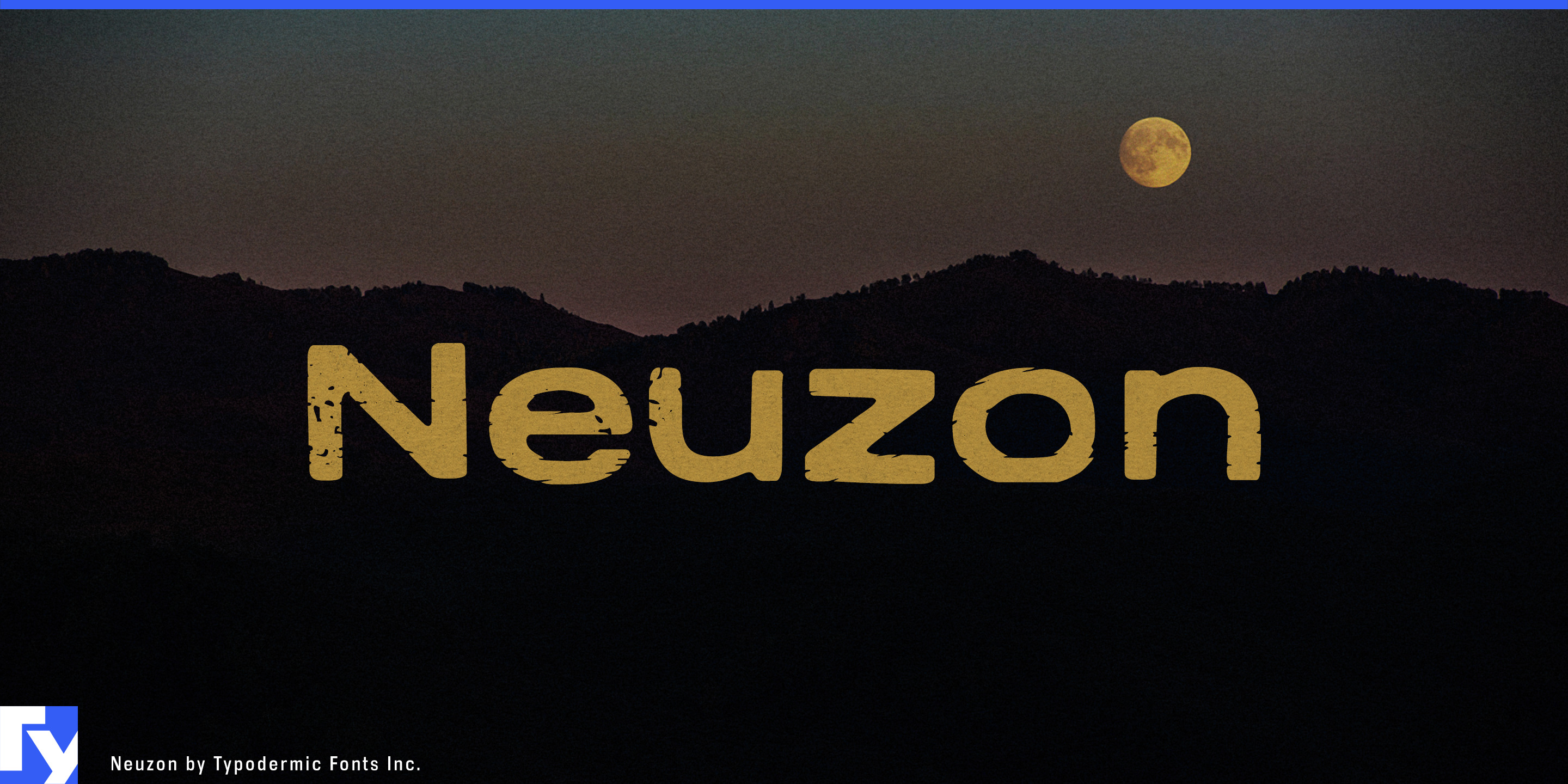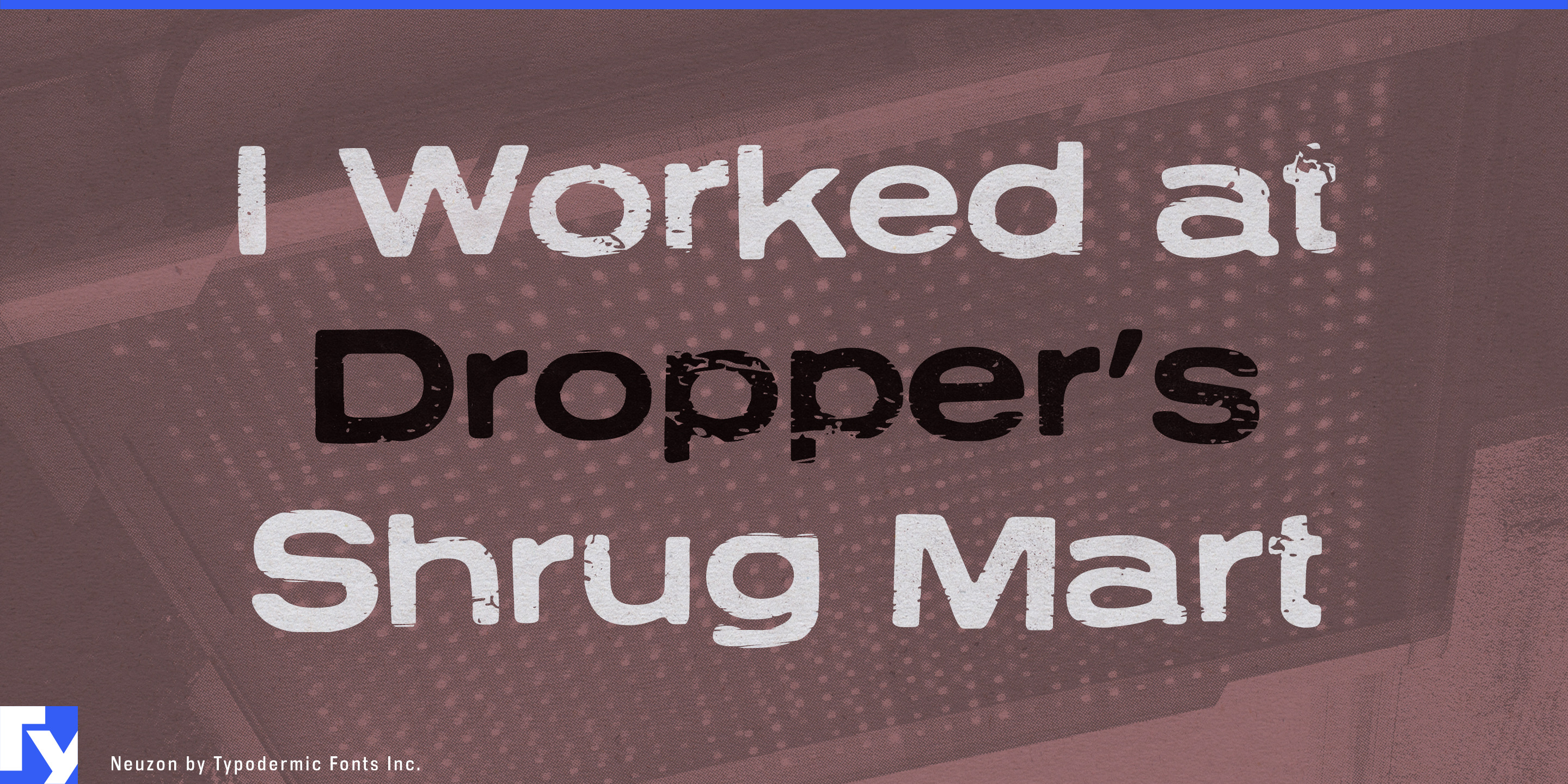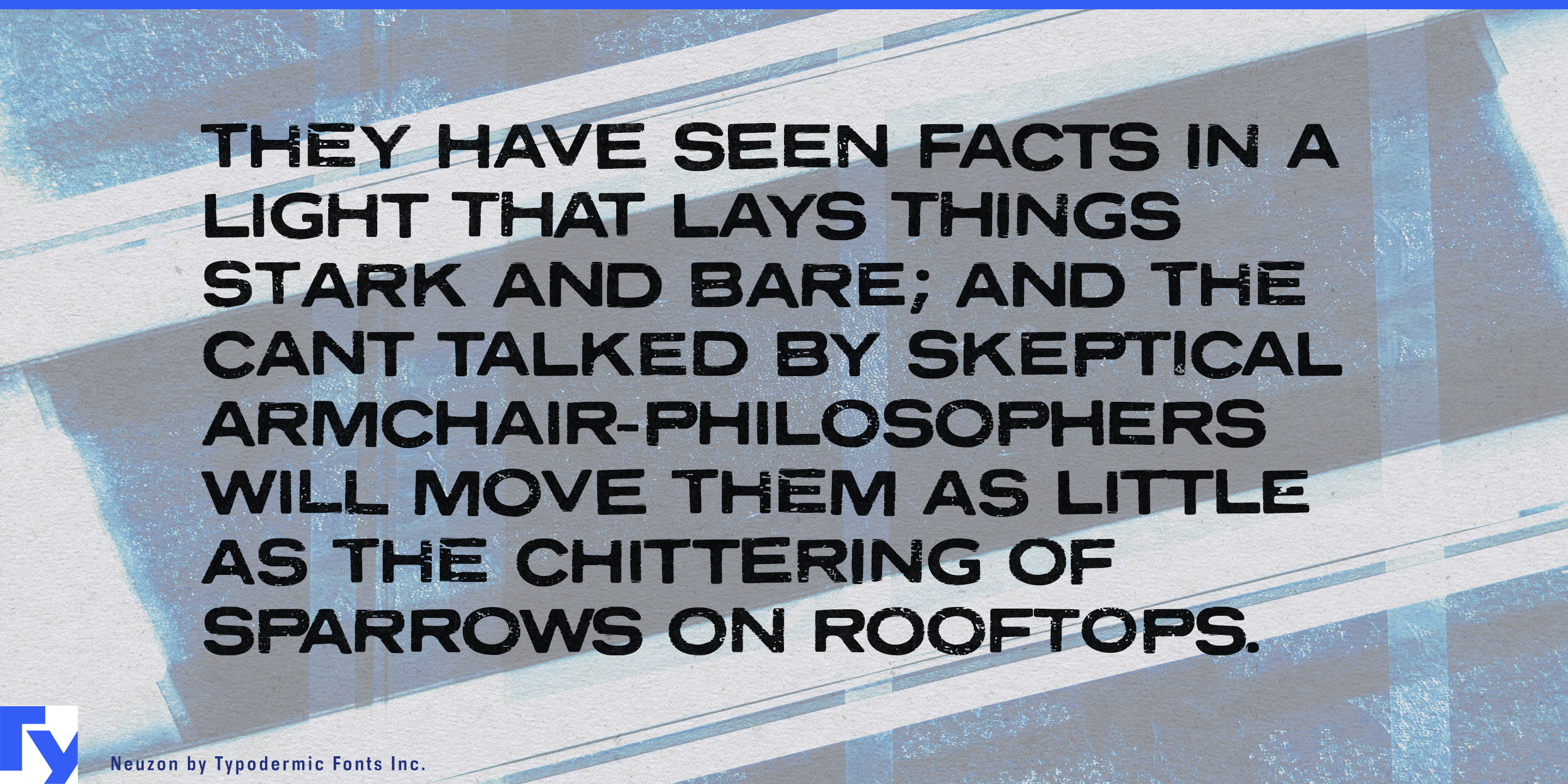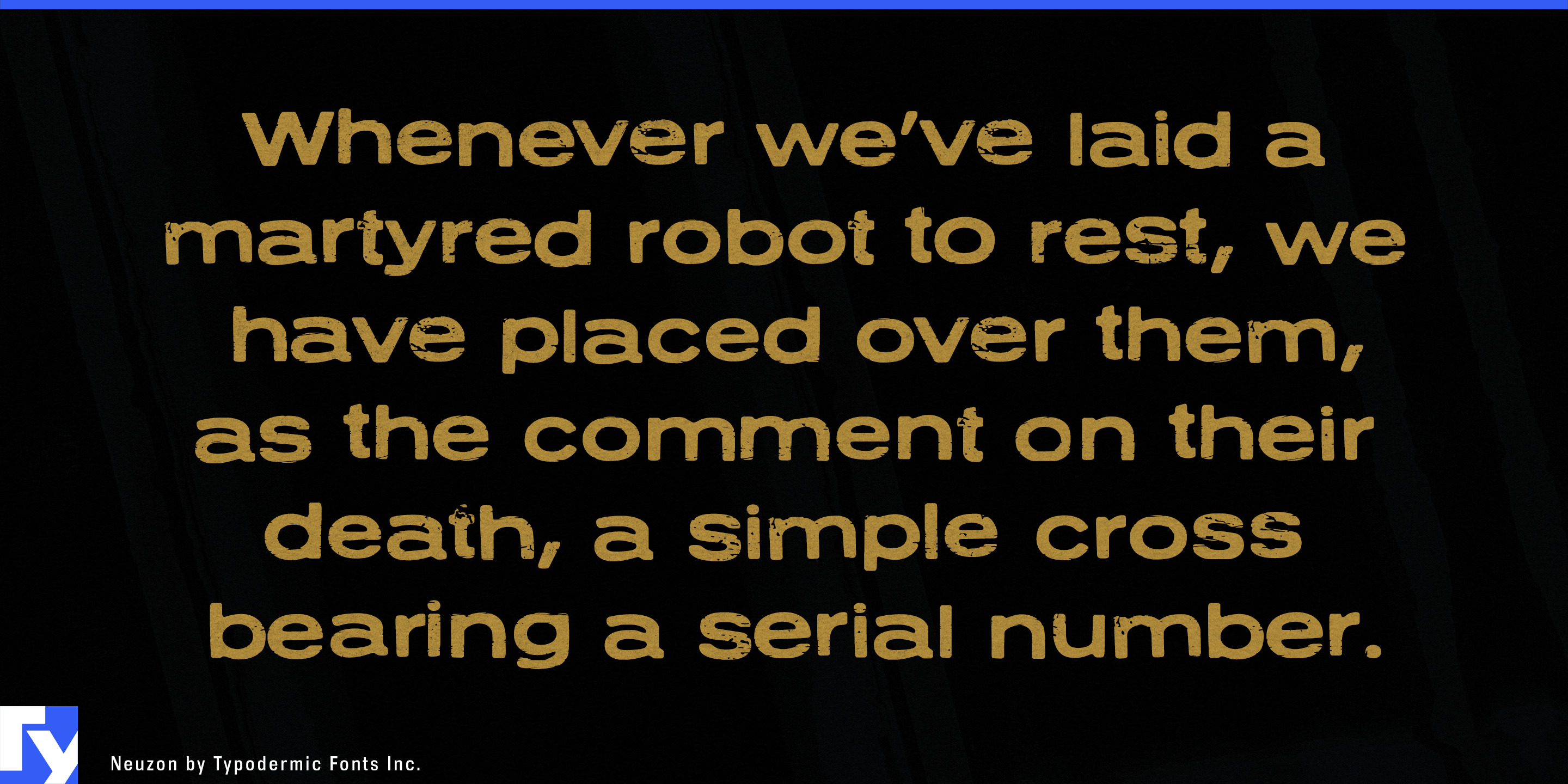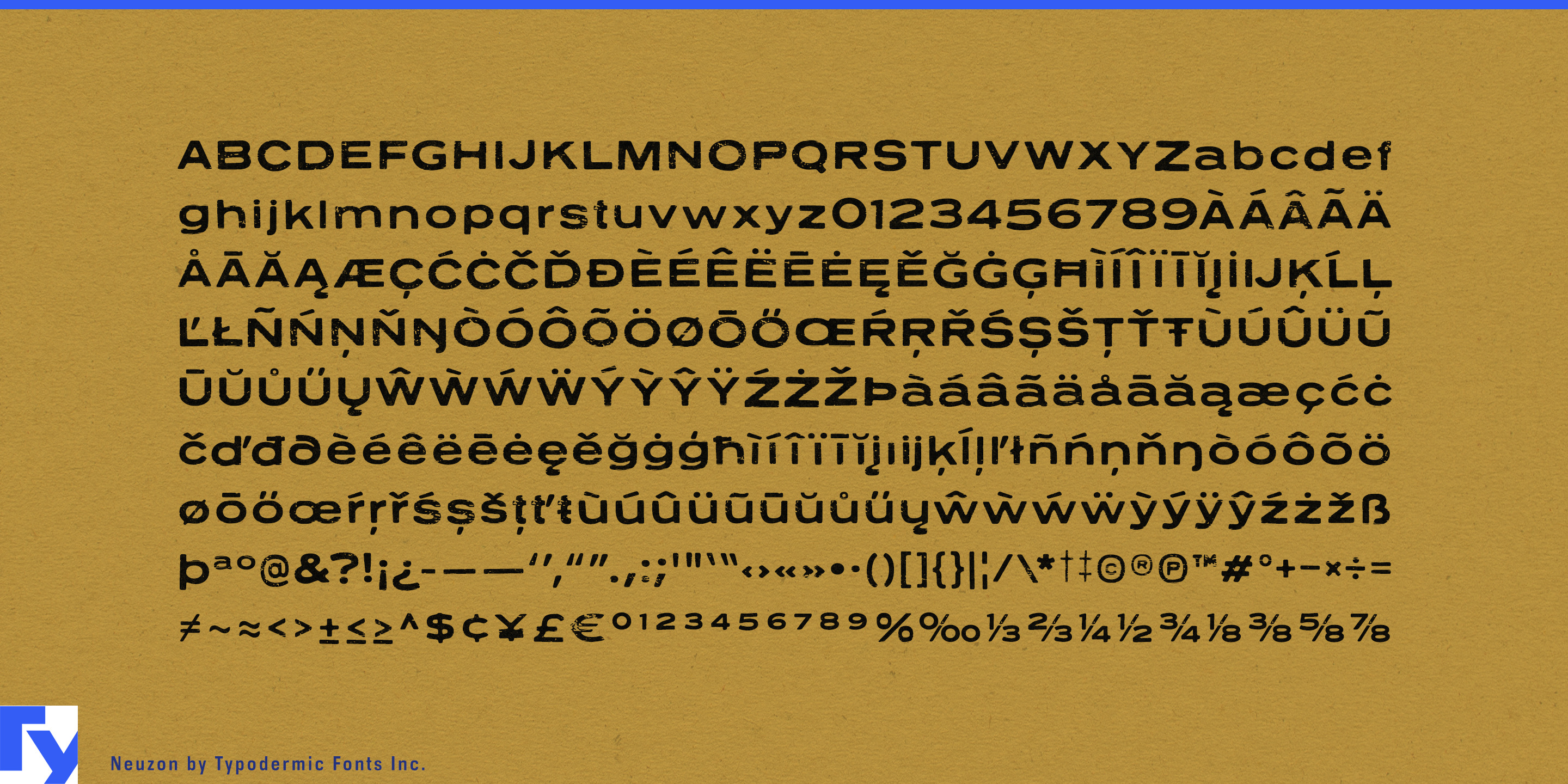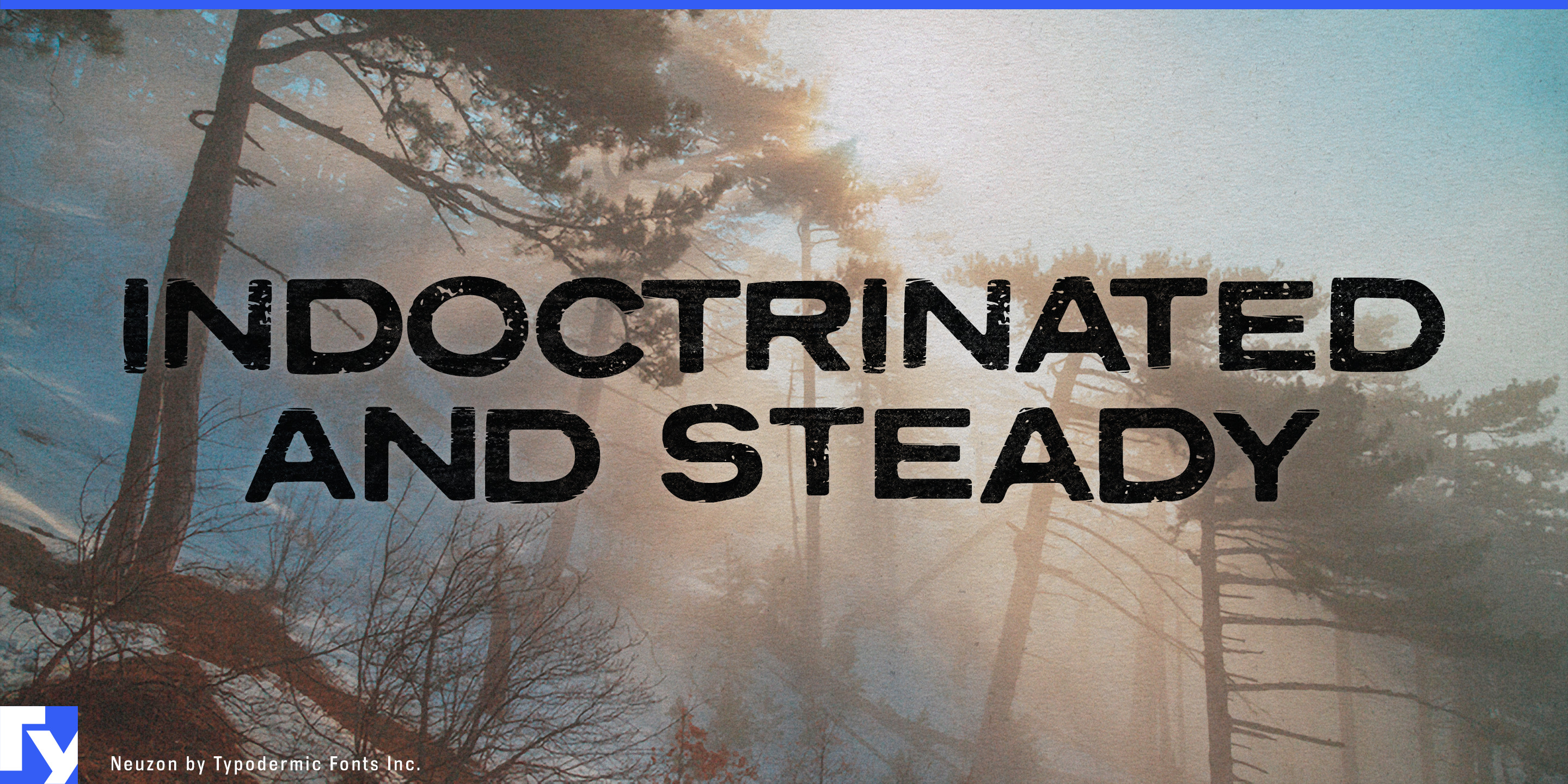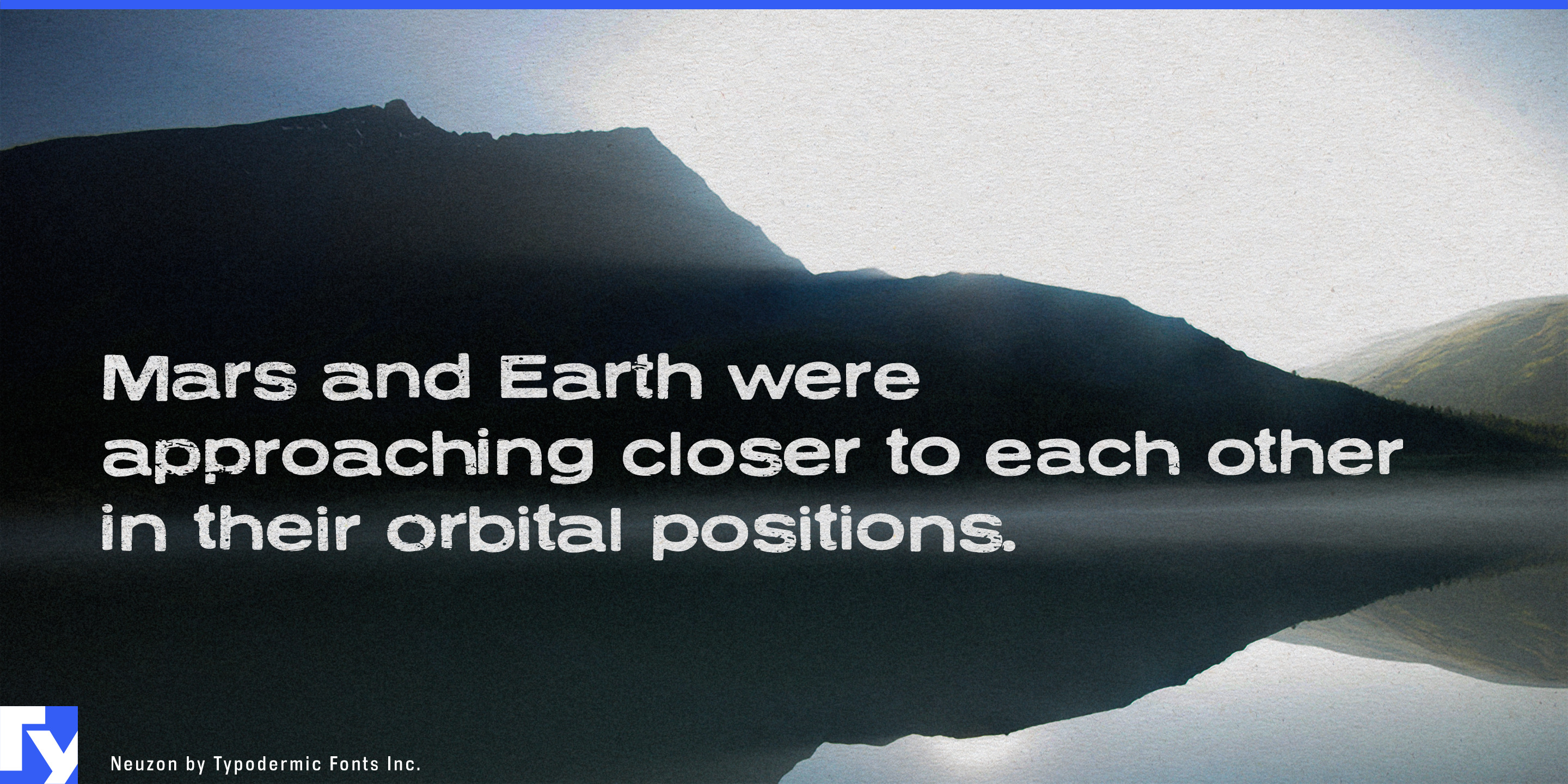
Neuzon
Some products need to look established without looking antique. A revived ski model, an electric restomod, a commemorative power tool, or a tin of hair balm may benefit from the impression that the brand has been making things for decades, but ornate heritage styling can send the message in the wrong direction. Neuzon offers another kind of history. Its very wide geometric forms suggest commercial modernism and engineered products, while the worn surface makes that design language feel as though it has already spent years on equipment, packaging, signs, and workshop walls.
Heritage outdoor brands are a natural fit. Ski and snowboard manufacturers, climbing-equipment companies, mountaineering labels, backpack makers, expedition brands, and alpine clothing companies can use Neuzon for revived model names, anniversary ski graphics, snowboard topsheets, jacket backs, equipment bags, binding and boot cartons, hangtags, resort collaborations, heritage catalogs, and limited-edition reissues. Its width works particularly well across skis, boards, cases, and other long surfaces.
The same contradiction suits restomods and revived machine brands. Electric conversions of classic cars, resurrected motorcycle marques, heritage bicycle companies, retro-styled e-bikes, specialty 4×4 builders, and vintage scooter revivals all combine current engineering with older visual expectations. Neuzon can handle model names, tank and frame graphics, battery covers, parts cartons, workshop signs, specification displays, apparel, and heritage-series identifiers.
Established manufacturers can use Neuzon when their own archives become part of the product. Tool makers, machinery companies, industrial electronics firms, workwear manufacturers, and other long-running engineering businesses can apply it to anniversary editions, restored-product programs, factory-store merchandise, historic model revivals, commemorative packaging, equipment cases, and trade-show retrospectives.
Men’s grooming provides a contemporary extension of the same idea. Pomade, hair balm, grooming clay, shaving cream, beard products, aftershave, solid cologne, and shaving kits often fall between ornate barbershop nostalgia and stark luxury minimalism. Neuzon offers a workshop-oriented alternative for product names, hold strengths, finish categories, scent families, jar lids, tins, tubes, cartons, barber displays, gift sets, and subscription packaging.
Neuzon works best when wear needs to imply a life already lived. Its broad modernist construction provides the product-design backbone; the distressed surface supplies the years.
- Geometric, Low contrast
- Expanded
- Distressed, Alternates